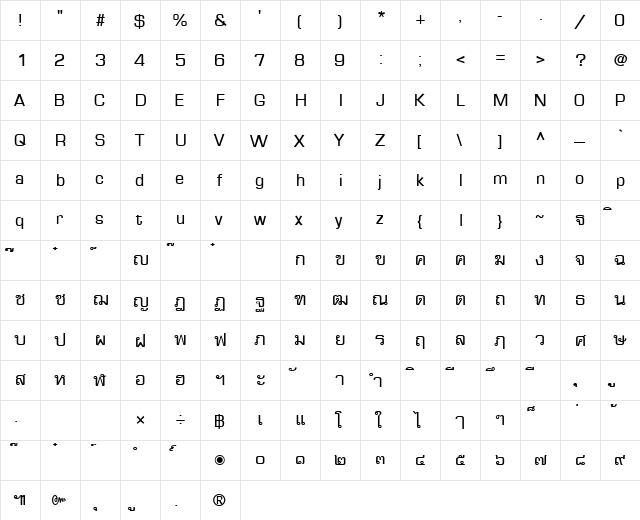
PSL-Chamnarn Regular
Design Context for PSL-Chamnarn Typeface
PSL-Chamnarn takes a measured approach to typography — its balanced proportions and neutral character make it a reliable workhorse for both digital and print work.